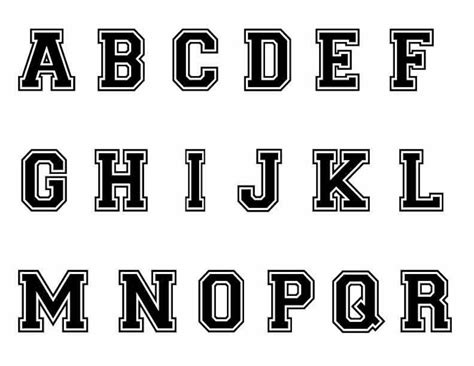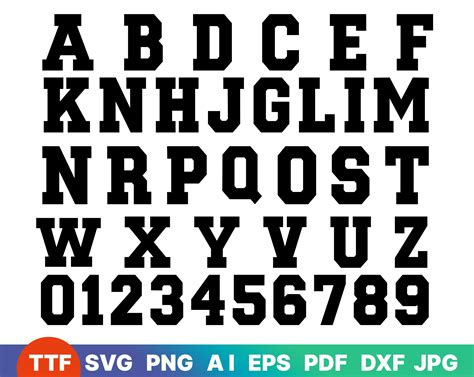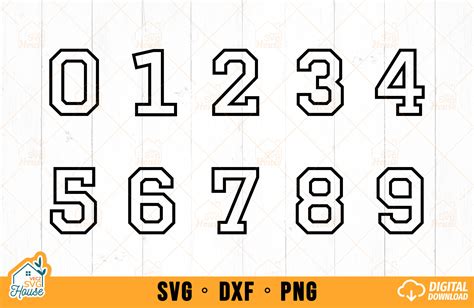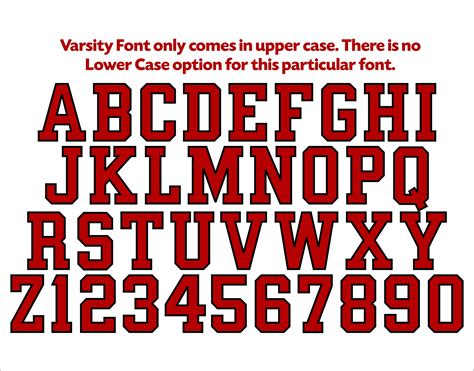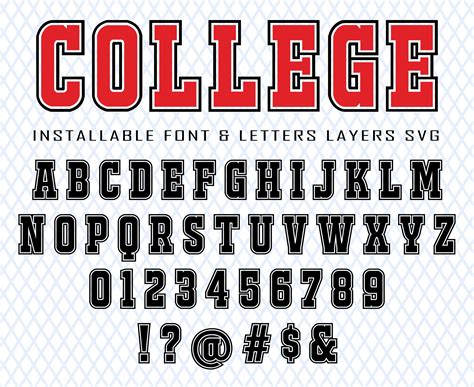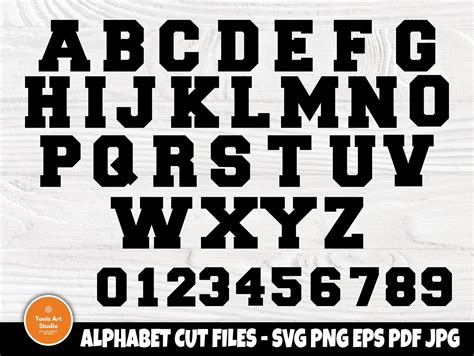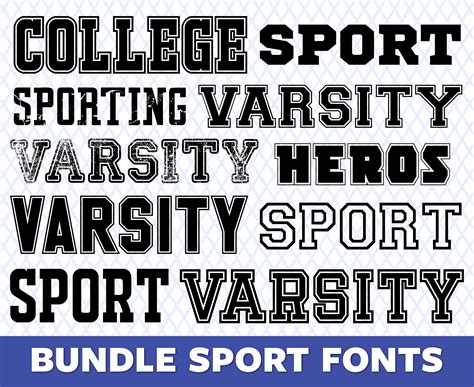
Typography plays a crucial role in design, setting the tone and enhancing the visual appeal of any project. Among the myriad of fonts available, the Varsity Letter Font stands out for its unique charm and versatility. This font, inspired by the classic lettering found on varsity jackets, brings a nostalgic and sporty vibe to any design. Whether you're creating a retro-themed project, a sports-related design, or simply looking to add a touch of vintage flair, the Varsity Letter Font is an excellent choice.
Understanding the Varsity Letter Font
The Varsity Letter Font is characterized by its bold, blocky letters and a slightly distressed appearance, reminiscent of the embroidered letters on varsity jackets. This font is perfect for designs that aim to evoke a sense of tradition, athleticism, and timeless style. Its distinctive look makes it stand out in various applications, from graphic design and branding to web design and print media.
History and Inspiration
The Varsity Letter Font draws inspiration from the iconic varsity jackets worn by athletes in the early 20th century. These jackets, often adorned with embroidered letters representing the wearer's school or team, became a symbol of achievement and pride. The font captures the essence of this classic design, making it a popular choice for projects that aim to convey a sense of heritage and accomplishment.
Characteristics of the Varsity Letter Font
The Varsity Letter Font has several key characteristics that make it unique:
- Bold and Blocky Letters: The font features thick, blocky letters that are easy to read and visually striking.
- Distressed Appearance: The slightly distressed look adds a touch of authenticity, making the font appear as if it were hand-stitched onto a jacket.
- Uppercase Letters: The font is primarily uppercase, which enhances its bold and impactful appearance.
- Limited Character Set: The font typically includes only uppercase letters and a few numerals, making it ideal for short, impactful text.
Applications of the Varsity Letter Font
The Varsity Letter Font is incredibly versatile and can be used in a wide range of applications. Here are some popular uses:
- Graphic Design: Use the font in posters, flyers, and other printed materials to create a retro or sporty vibe.
- Branding: Incorporate the font into logos and branding materials for companies that want to convey a sense of tradition and athleticism.
- Web Design: Add the font to headings and buttons on websites to create a visually appealing and nostalgic design.
- Print Media: Use the font in magazines, newspapers, and other print media to highlight headlines and key phrases.
- Apparel Design: Incorporate the font into t-shirt designs, hats, and other apparel to create a vintage sports look.
Design Tips for Using the Varsity Letter Font
To make the most of the Varsity Letter Font, consider the following design tips:
- Pair with Complementary Fonts: The bold and blocky nature of the Varsity Letter Font pairs well with more delicate or modern fonts. Use it for headings and pair it with a simpler font for body text.
- Use Sparingly: Due to its bold and impactful appearance, the Varsity Letter Font is best used sparingly. Reserve it for key phrases and headings to maintain visual balance.
- Experiment with Colors: The font looks great in classic colors like red, white, and blue, but don't be afraid to experiment with other color schemes to create a unique look.
- Add Texture: To enhance the distressed appearance of the font, consider adding texture or overlays to your design. This can make the font look even more authentic and vintage.
Creating a Varsity Letter Font Design
Creating a design using the Varsity Letter Font is straightforward. Here are the steps to get you started:
- Choose Your Design Software: Select a design software that supports custom fonts, such as Adobe Illustrator, Photoshop, or Canva.
- Import the Font: Import the Varsity Letter Font into your design software. This may involve installing the font on your computer or uploading it directly to the software.
- Create Your Design: Start creating your design, using the Varsity Letter Font for headings, logos, or other key elements. Experiment with different sizes, colors, and placements to achieve the desired look.
- Add Finishing Touches: Enhance your design with additional elements such as textures, overlays, or complementary fonts. Make sure the overall design is cohesive and visually appealing.
Examples of Varsity Letter Font in Action
To inspire your next design project, here are some examples of how the Varsity Letter Font can be used effectively:
| Application | Description | Example |
| Poster Design | A retro-themed poster for a sports event, featuring the Varsity Letter Font for the event title and key details. | |